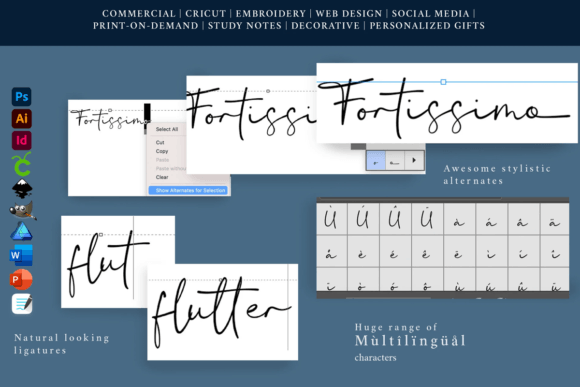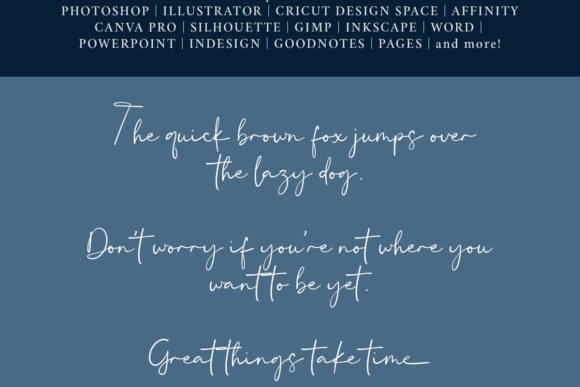
Unleashing Creativity with the Perfect Font
As designers, we’ve all been there – staring at a blank page, trying to find the perfect font to match our vision. It’s that moment of creative frustration that sparks inspiration, and for many of us, it’s the search for the perfect script that sets the tone for our next big project.
Enter Fortissimo: An Elegant Script, a beautiful and sophisticated style of writing that adds a touch of elegance to any project. With its flowing lines and graceful curves, Fortissimo Font is perfect for special occasions like weddings or formal events. Its classic yet modern look makes it a valuable addition to any designer’s toolkit, allowing them to create stunning visuals that leave a lasting impression.
Key Features of Fortissimo Font
- Unique Characteristics: The Fortissimo Font features a dynamic, energetic feel with exaggerated letterforms and intricate details, making it ideal for headlines, titles, and other attention-grabbing text.
Fortissimo Font Review
As a designer, I’ve had the chance to work with a wide range of fonts, but Fortissimo Font caught my attention for its unique blend of elegance and playfulness. Here’s my honest review.
- Uniquely balanced: Fortissimo Font’s combination of curvaceous lines and geometric shapes creates a visually appealing balance that works well for titles and headings.
- Legibility: Despite its complex design, the font remains highly legible, making it suitable for body text and longer passages.
- Customization options: The font family offers a range of weights and styles, allowing designers to fine-tune their visual identity.
- Overuse: Fortissimo Font’s distinctive style can quickly become overwhelming if overused, so it’s essential to balance it with more neutral fonts.
- Limited support: The font may not be optimized for certain screen resolutions or font sizes, which can lead to pixelation or distortion.
Overall impression
Fortissimo Font is a versatile and visually appealing font that can elevate any design. While it has its limitations, it’s a great choice for designers who want to add a touch of sophistication and elegance to their work.
Fortissimo Font: A Practical Application Guide
Fortissimo Font is a bold and elegant font suitable for various design projects. To use it in your chosen platform, follow these steps:
Use Fortissimo Font for creating eye-catching headlines, titles, and logos.
It’s also suitable for designing business cards, brochures, and other marketing materials.
Remember to pair it with a clear and readable font for body text.
Alternatives to Fortissimo Font
Great Vibes Font is a modern, elegant script font designed for headlines and titles. It’s ideal for use in branding, advertising, and editorial design. When to use: For creating a sophisticated and eye-catching look in your design.
Comparison to Fortissimo Font: While Fortissimo Font is also a script font, Great Vibes Font has a more refined and polished appearance, making it suitable for high-end designs. Fortissimo Font is more playful and energetic, whereas Great Vibes Font is more elegant and sophisticated.
Pacifico Font is a beautiful, handwritten font that’s perfect for creating a relaxed and casual atmosphere in your design. It’s ideal for use in branding, packaging, and editorial design. When to use: For creating a friendly and approachable look in your design.
Comparison to Fortissimo Font: While both fonts have a handwritten feel, Pacifico Font is more laid-back and casual, whereas Fortissimo Font is more energetic and playful. Pacifico Font is also more versatile and can be used in a wider range of designs.
Carolyna Pro Font is a luxurious, elegant script font designed for high-end designs. It’s ideal for use in branding, advertising, and editorial design. When to use: For creating a sophisticated and luxurious look in your design.